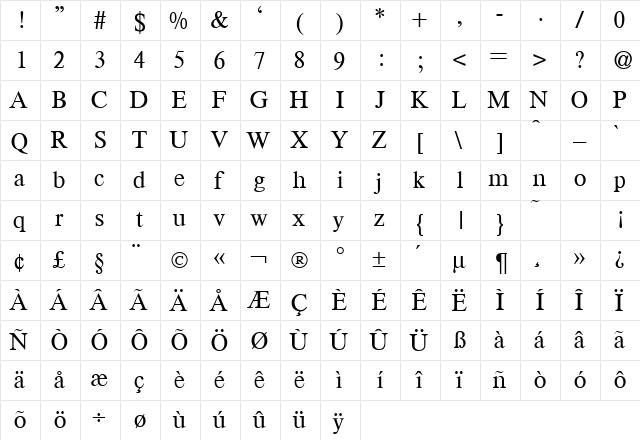
Trinar Normal Font Preview
Trinar Normal
Trinar Normal Font Details
Design Context for Trinar Typeface
Trinar takes a measured approach to typography — its balanced proportions and neutral character make it a reliable workhorse for both digital and print work.